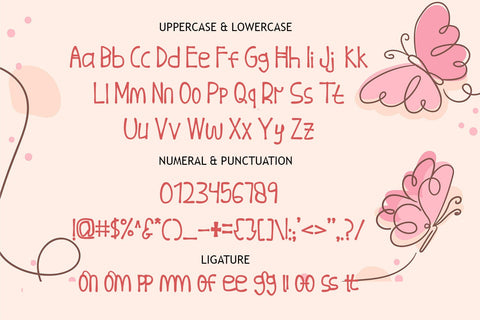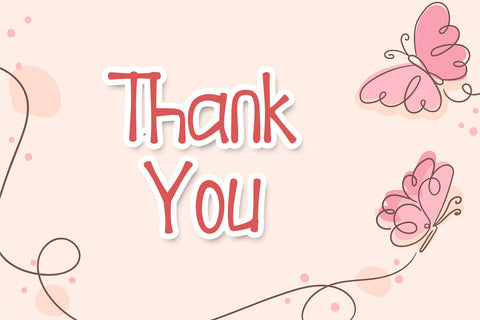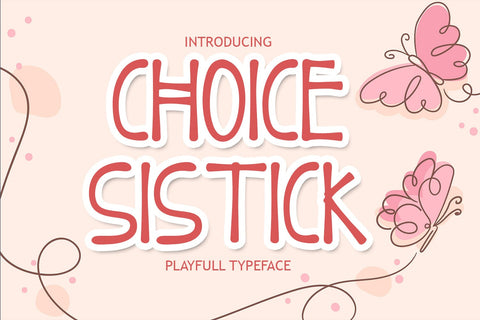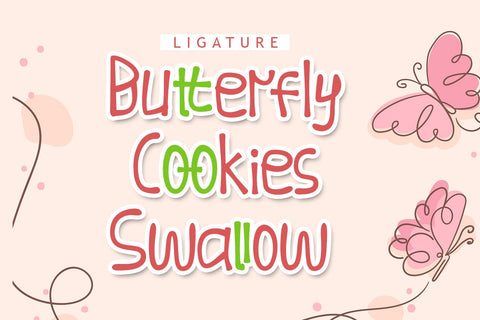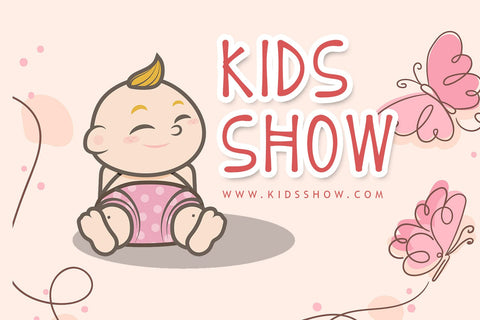
Choice Sistick
Choice Sistick Font – Choice Sistick Font is a design font with a natural brush style that can enhance the quality of your designs.
Choice Sistick – This Brush Font is perfect for designs, logos, social media, brands, advertisements, product designs, handwritten quotes, product packaging, headers, posters, merchandise, and other designs.